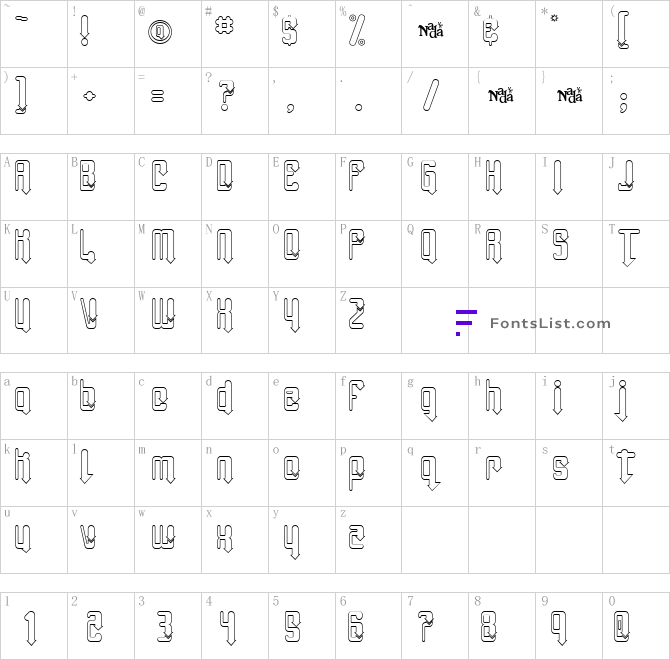
• Font Name:Angie TanLines
• Subfamily:Angie TanLines
• Full Name:Angie TanLines
• PostScript:AngieTanLines
Angie-TanLines.ttf is a very beautiful artistic font, Angie-TanLines.ttf is widely used in the design and printing of various books and pictures,Angie-TanLines.ttf has a strong visual impact,Angie-TanLines.ttf is a commonly used font in newspapers, magazines and books, and is used in posters, e-commerce Poster design, store design, logo design, font design and other fields.Angie-TanLines.